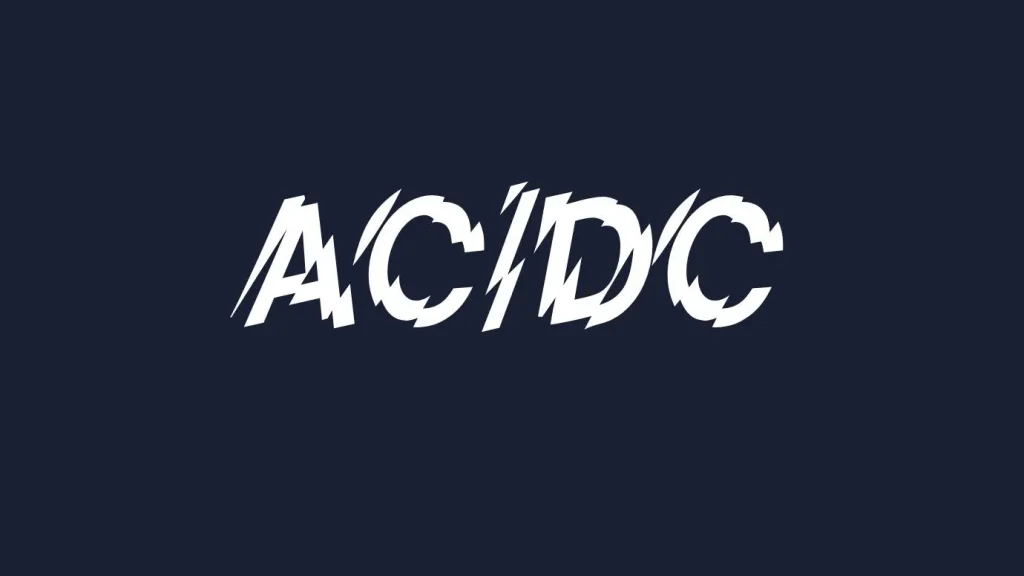
It contains both upper- and lower-case letters, numbers, and some punctuation marks. The text style is flawless as long as each design demands a fun and
With this typeface, you can create sophisticated, attractive, and unique designs, which are ideal for marketing. The font features have a traditional feel with a unique design.
It contains both upper- and lower-case letters, numbers, and some punctuation marks. The text style is flawless as long as each design demands a fun and unusual feel. There are a variety of ways to use this style for social media posts.
Typodermic Fonts is the designer of this wonderful textual style.